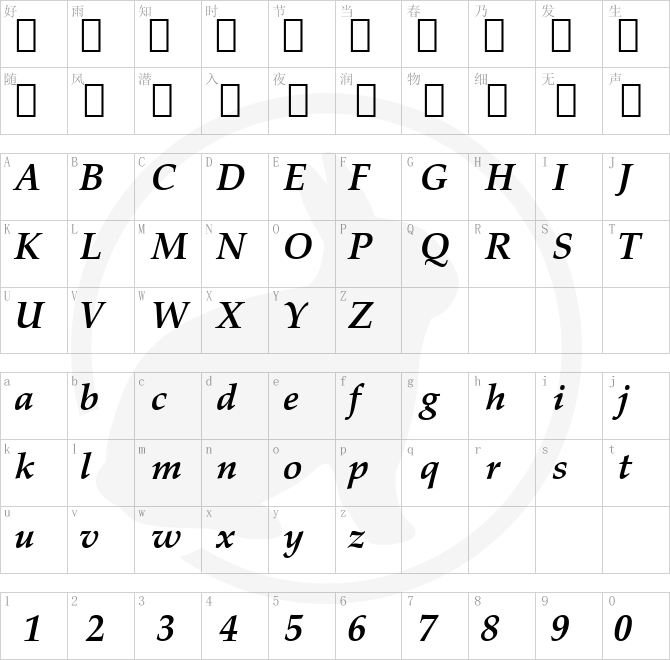
- Font Name:ZapfCalligr BT
- Subfamily:Zapf Calligraphic 801 Bold Italic
- Full Name:ZapfCalligr BT Bold Italic
- PostScript:ZapfCalligraphic801BT-BoldItal
ZapfCalligr-BT-Bold-Italic.ttf is a very beautiful artistic font, ZapfCalligr-BT-Bold-Italic.ttf is widely used in the design and printing of various books and pictures,ZapfCalligr-BT-Bold-Italic.ttf has a strong visual impact,ZapfCalligr-BT-Bold-Italic.ttf is a commonly used font in newspapers, magazines and books, and is used in posters, e-commerce Poster design, store design, logo design, font design and other fields.ZapfCalligr-BT-Bold-Italic.